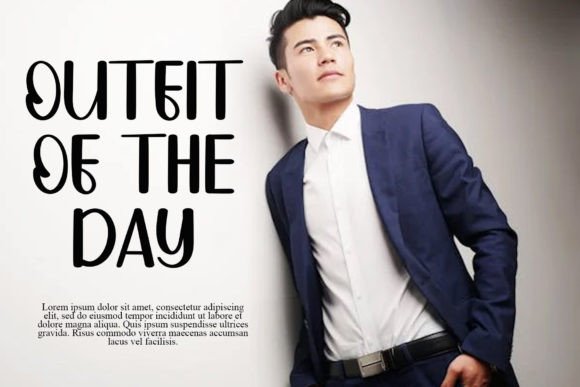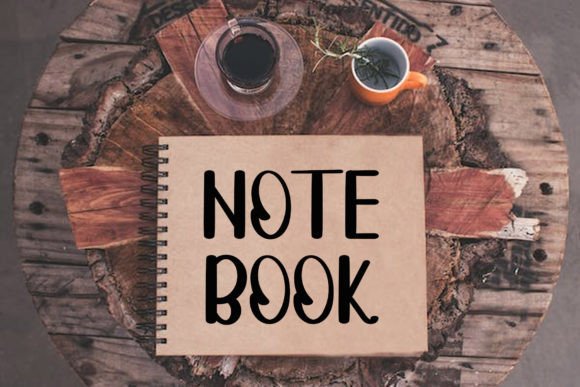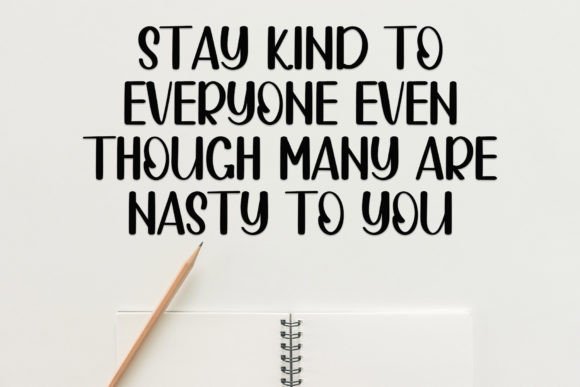
Introduction to September Vacation Font
Remember that moment when you stumbled upon the perfect design inspiration, and your creative project suddenly took off in a whole new direction? For many of us, that ‘aha’ moment is often triggered by the discovery of a unique and captivating font. If you’re a designer, artist, or DIY enthusiast, you know how a single font can elevate your entire project and give it that special something. Today, we’re excited to introduce you to the September Vacation Font, a beautiful handwritten font that’s perfect for adding a touch of elegance to your designs.
With its free download option and transparent background, the September Vacation Font is an invaluable design resource that can be used for a wide range of creative projects, from Instagram posts to calligraphy scripts. Whether you’re a seasoned designer or just starting out, this high-quality font is sure to impress and inspire your next design project.
Key Features of September Vacation Font
- Unique, hand-drawn design ideal for creative projects and personal branding
- High-quality font with a transparent background, perfect for digital design and graphic art
- Font size: scalable, with no size limitations, allowing for flexibility in creative projects
- Resolution: high-resolution, ideal for printing and digital applications
- Suitable for a wide range of creative projects, from logos and branding to illustrations and typography
Honest Review: September Vacation Font
I recently had the chance to try out the September Vacation Font, and I must say it’s a great addition to any design resource collection. The font is free to download, which is always a bonus. One of the standout features of this font is its transparent background, making it easy to use on a variety of creative projects.
Here are some things that work well with this font: ✨ It has a unique, playful style that’s perfect for adding a touch of personality to a design. ✨ The font is highly legible, even at smaller sizes. ✨ The transparent background makes it easy to layer over other design elements.
However, there are a few limitations to keep in mind: ⚠️ The font may not be suitable for formal or corporate designs, as it’s a bit too casual. ⚠️ Some users may find the font to be a bit too playful, which could be a drawback for more serious projects.
Overall, I’m impressed with the September Vacation Font. It’s a great resource for designers looking to add some personality to their creative projects. With its high quality and unique style, it’s definitely worth checking out.
- Perfect for creative projects, such as social media graphics or blog posts.
- Great for designers looking to add a playful touch to their designs.
The September Vacation Font is perfect for designing summer-themed projects, such as invitations, flyers, and social media graphics. Its playful and relaxed feel makes it ideal for creative projects that require a laid-back vibe.
Is the September Vacation Font suitable for high-quality design projects?
Yes, the September Vacation Font is designed to be a high-quality design resource. It’s perfect for creative projects that require a unique and stylish touch. With its clean lines, elegant feel, and versatility, the September Vacation Font is sure to elevate your designs to the next level.